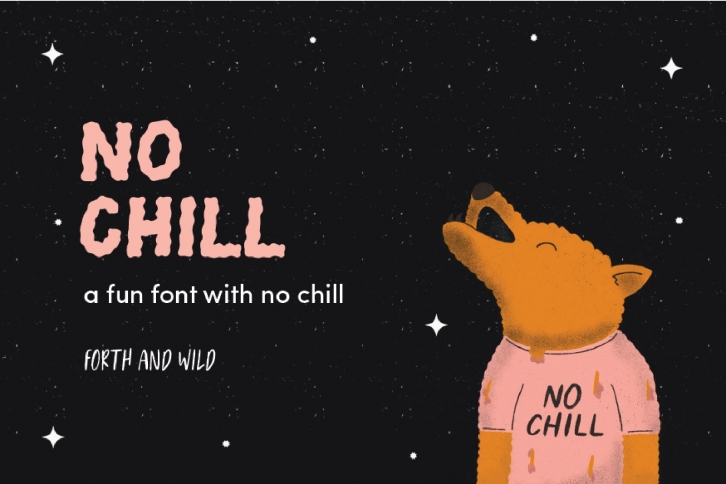
No Chill Wavy Display FONT Download
No Chill is a playful handwritten font that is perfect for adding a personal touch to your next project.
No Chill is a handwritten UPPERCASE simple and bold display font. No Chill display font works great for creating logos, quotes to share on Instagram, social media, and more! Please note the font only comes with what you see on the second image. Punctuation and symbols are limited.